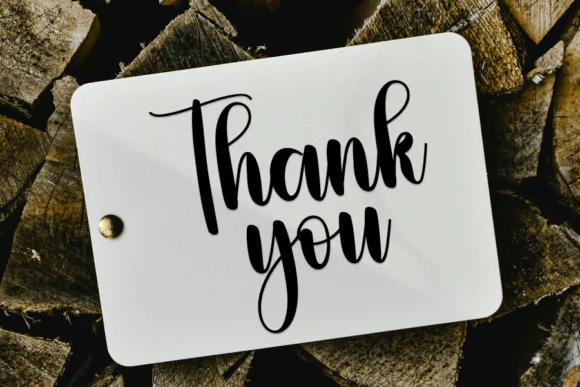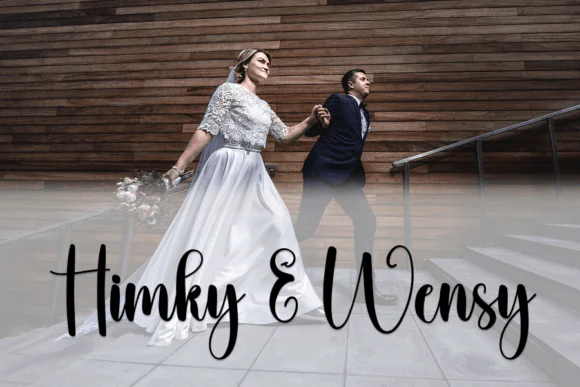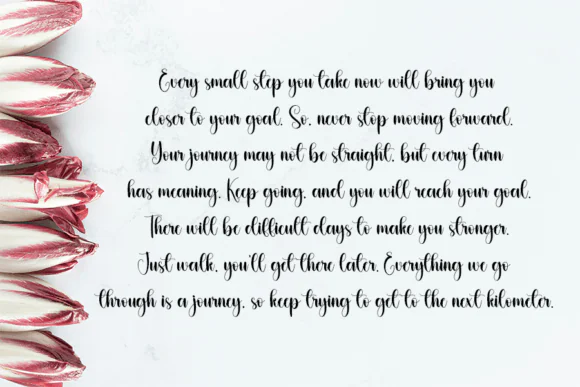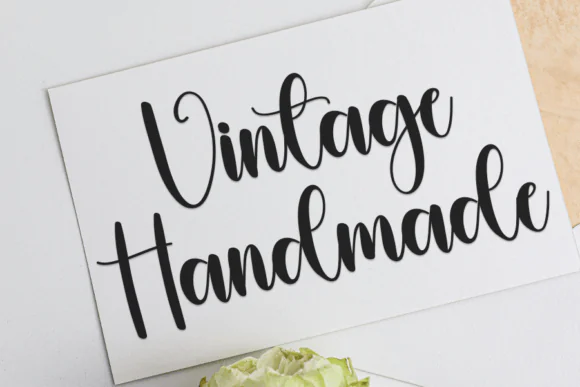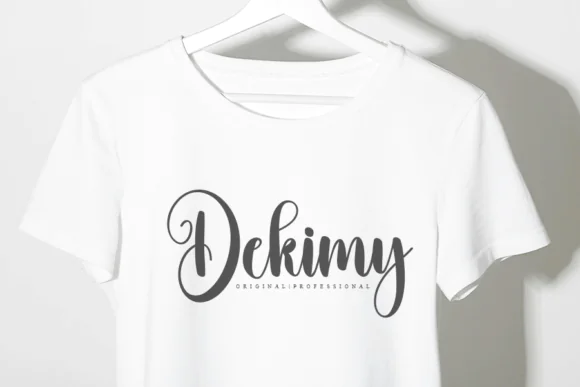
Whimsical Magic-Inspired Handwritten Font – Playful Script Typeface for Invitations, Letters, Food Labels, Party Designs, Kids Projects, Titles, Branding & Creative Craft Designs
Add a soft, magical, and charming handwritten touch to your creative projects with this Whimsical Magic-Inspired Handwritten Font. Designed with a delicate and playful handwritten style, this font is perfect for creating warm, friendly, and eye-catching designs for both personal and commercial creative work.
Its smooth letterforms and unique handwritten character make it suitable for invitations, greeting cards, party decorations, product packaging, food labels, social media graphics, titles, posters, branding designs, and craft projects. Whether you are designing for children’s themes, fantasy-inspired artwork, birthday parties, festive events, or cute handmade products, this font helps bring a fun and memorable personality to your text.
This typeface is especially useful for designers, crafters, small business owners, print-on-demand sellers, digital product creators, and anyone who wants a handwritten font with a magical, cheerful feel. It can be used for titles, quotes, labels, logos, stickers, packaging, invitations, and creative lettering designs.
Invitations, greeting cards, handwritten letters, food product labels, birthday designs, kids party themes, fantasy-style designs, social media posts, stickers, packaging, titles, posters, logos, branding, craft projects, digital downloads, and printable designs.
What Makes It Useful
• Delicate handwritten font style
• Playful and charming letter appearance
• Great for titles, invitations, labels, and packaging
• Suitable for kids, fantasy, party, and festive designs
• Easy to use in creative design projects
• Works well for both digital and printable products
• Ideal for designers, crafters, and small businesses